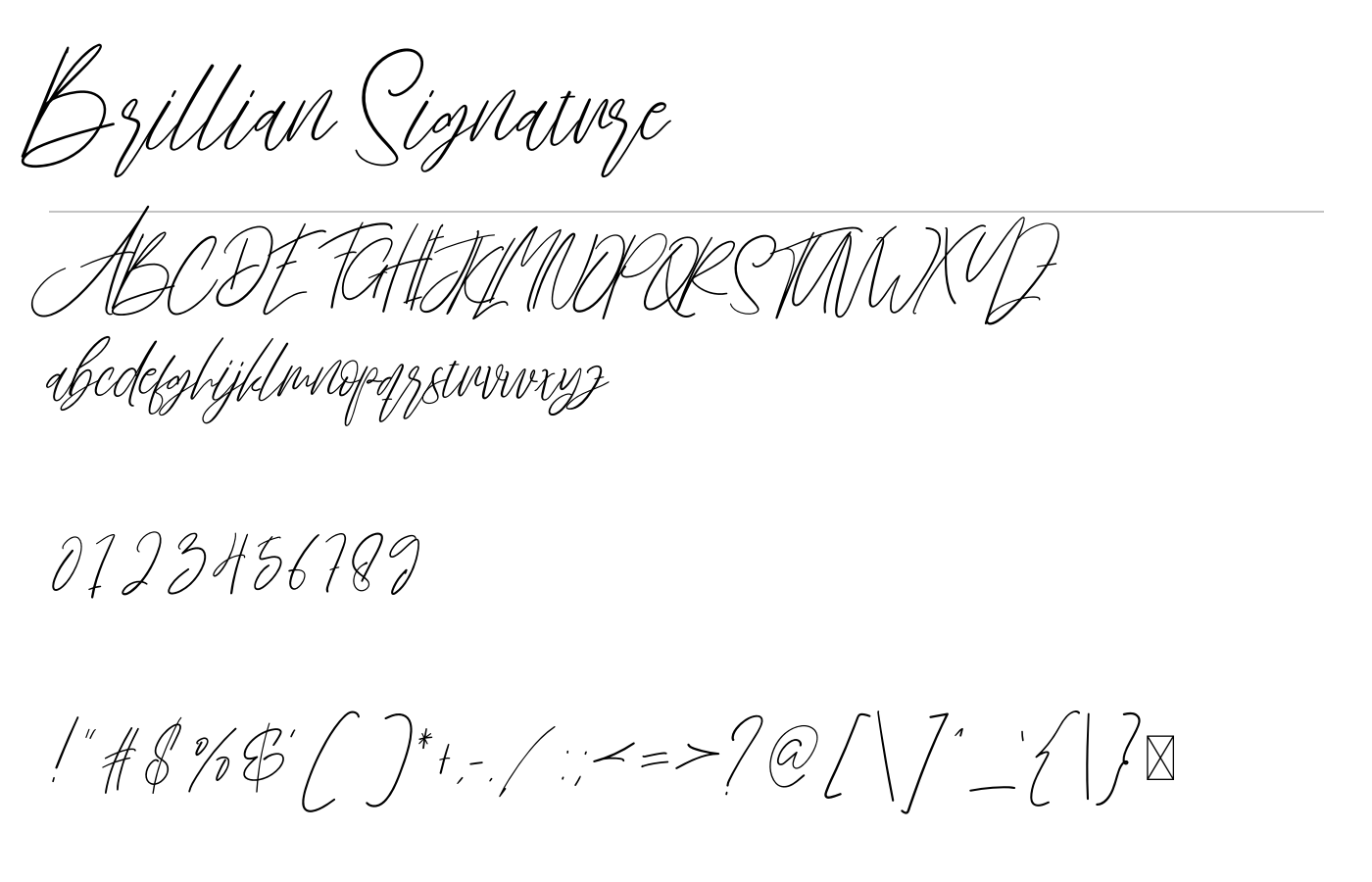
Brillian Signature Font is a slender, elegant script that mimics natural handwriting with smooth, flowing lines and delicate strokes. Its tall, narrow letterforms convey a stylish and personal touch, making it perfect for branding, invitations, and any design needing a refined, sophisticated feel. This font works best in creative projects where a graceful, handwritten look adds authenticity and charm.
Brillian Signature Font
About Brillian Signature Font